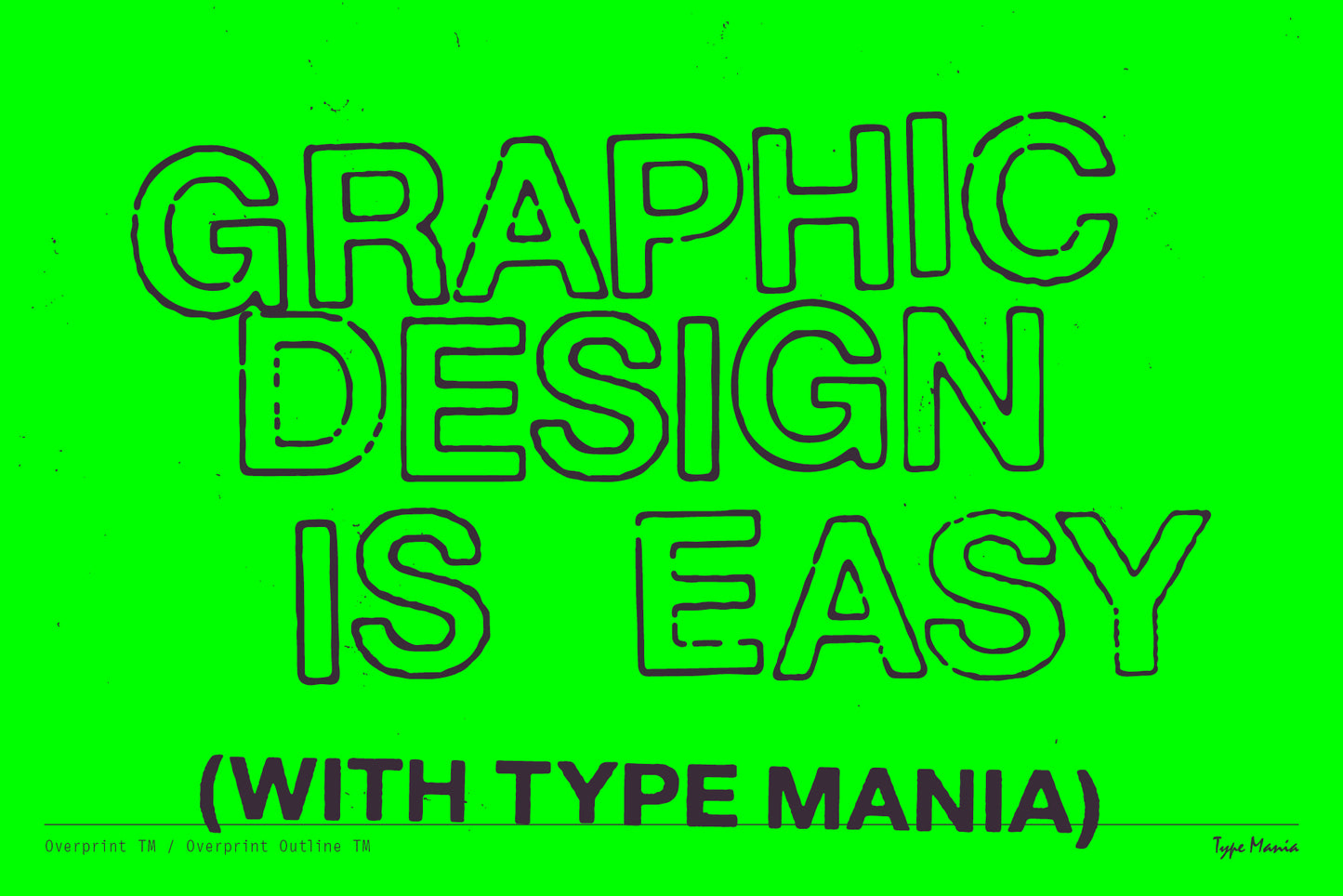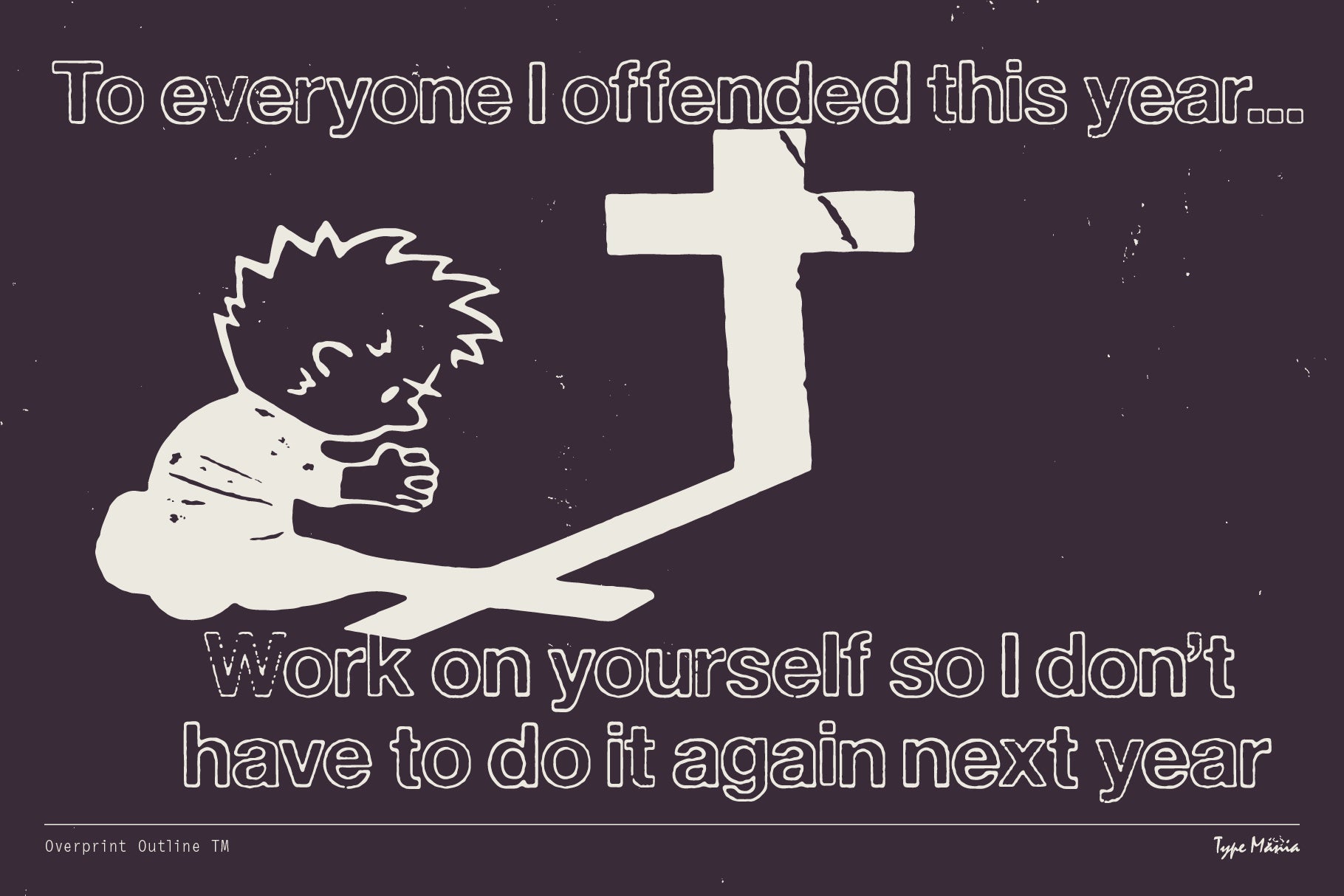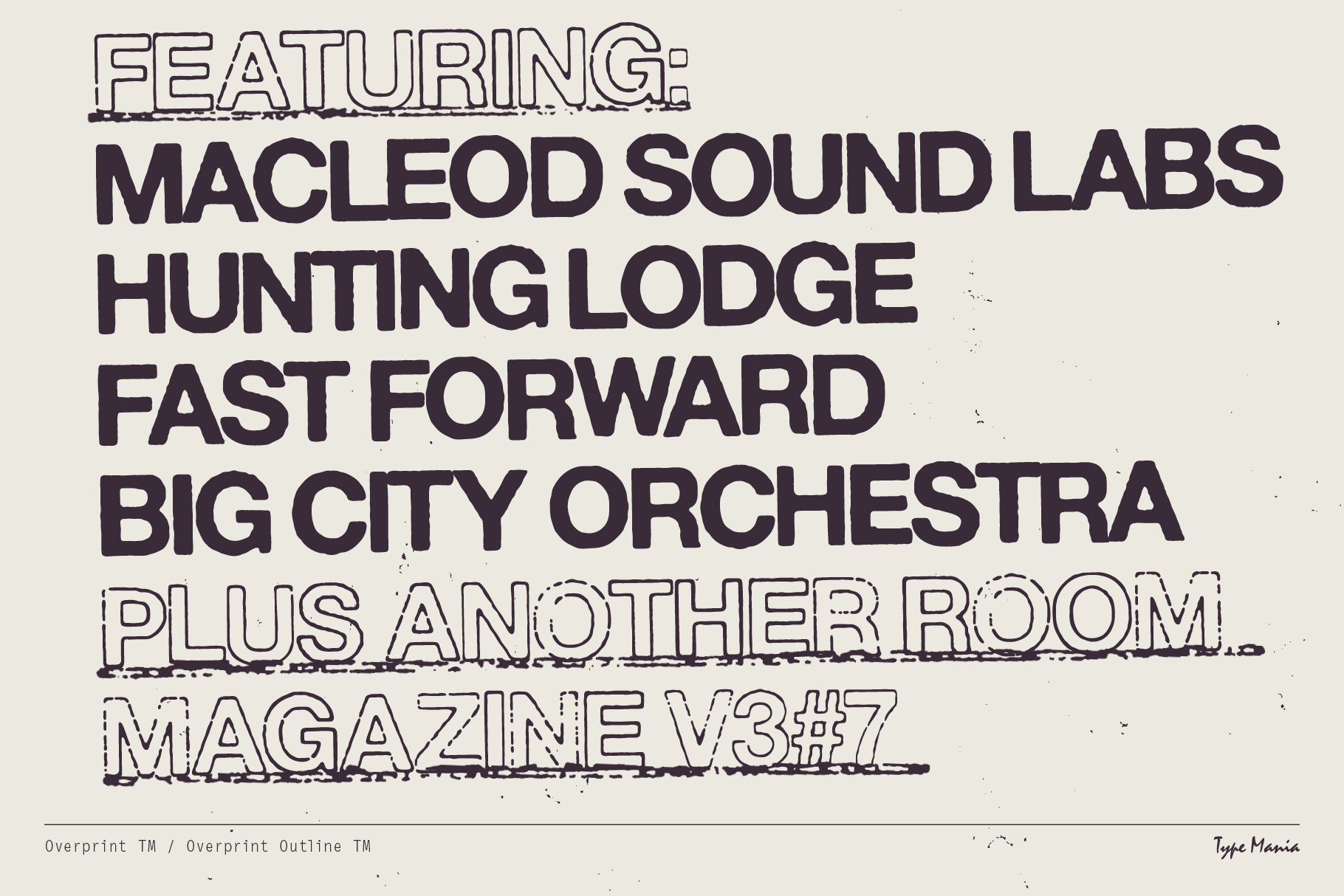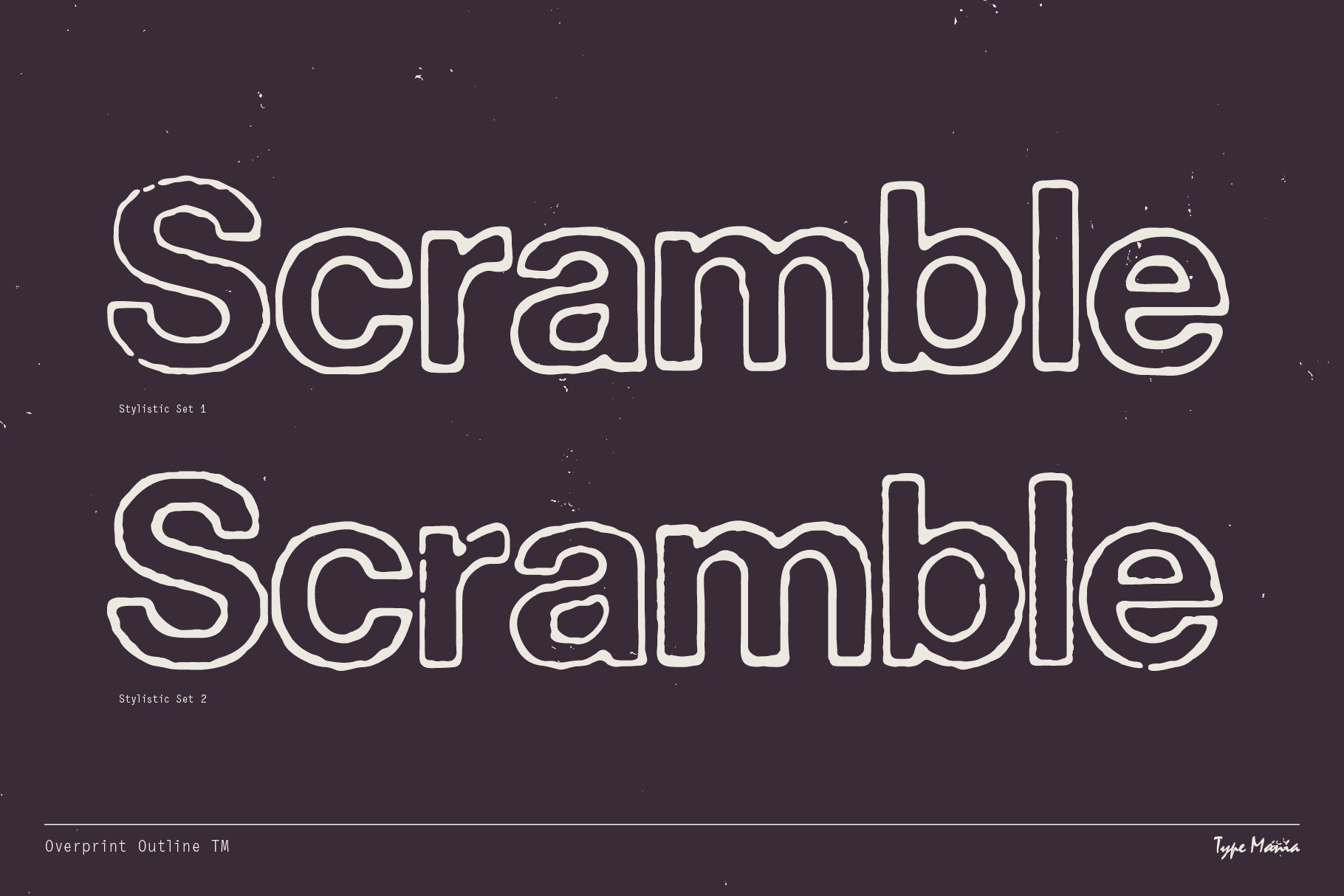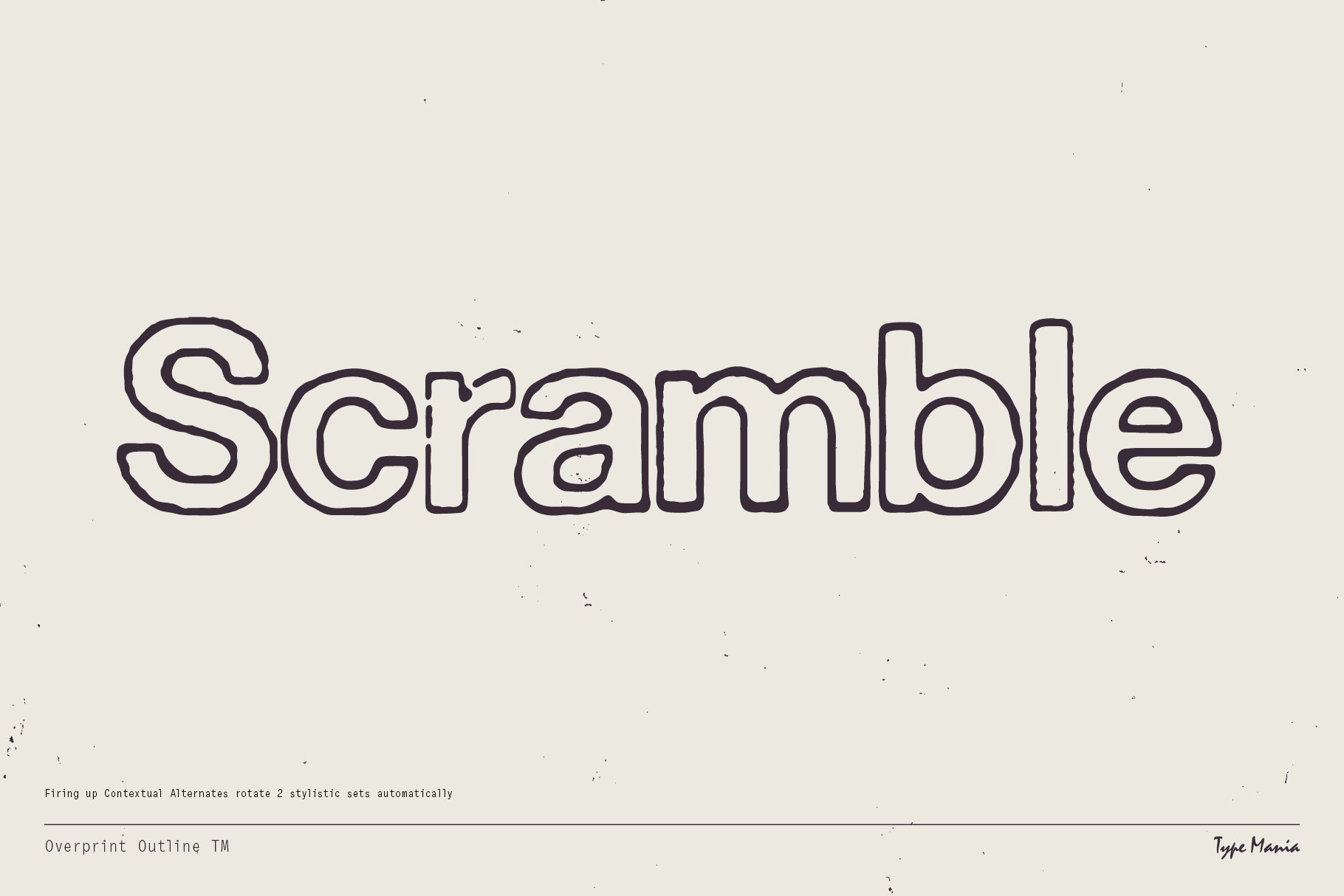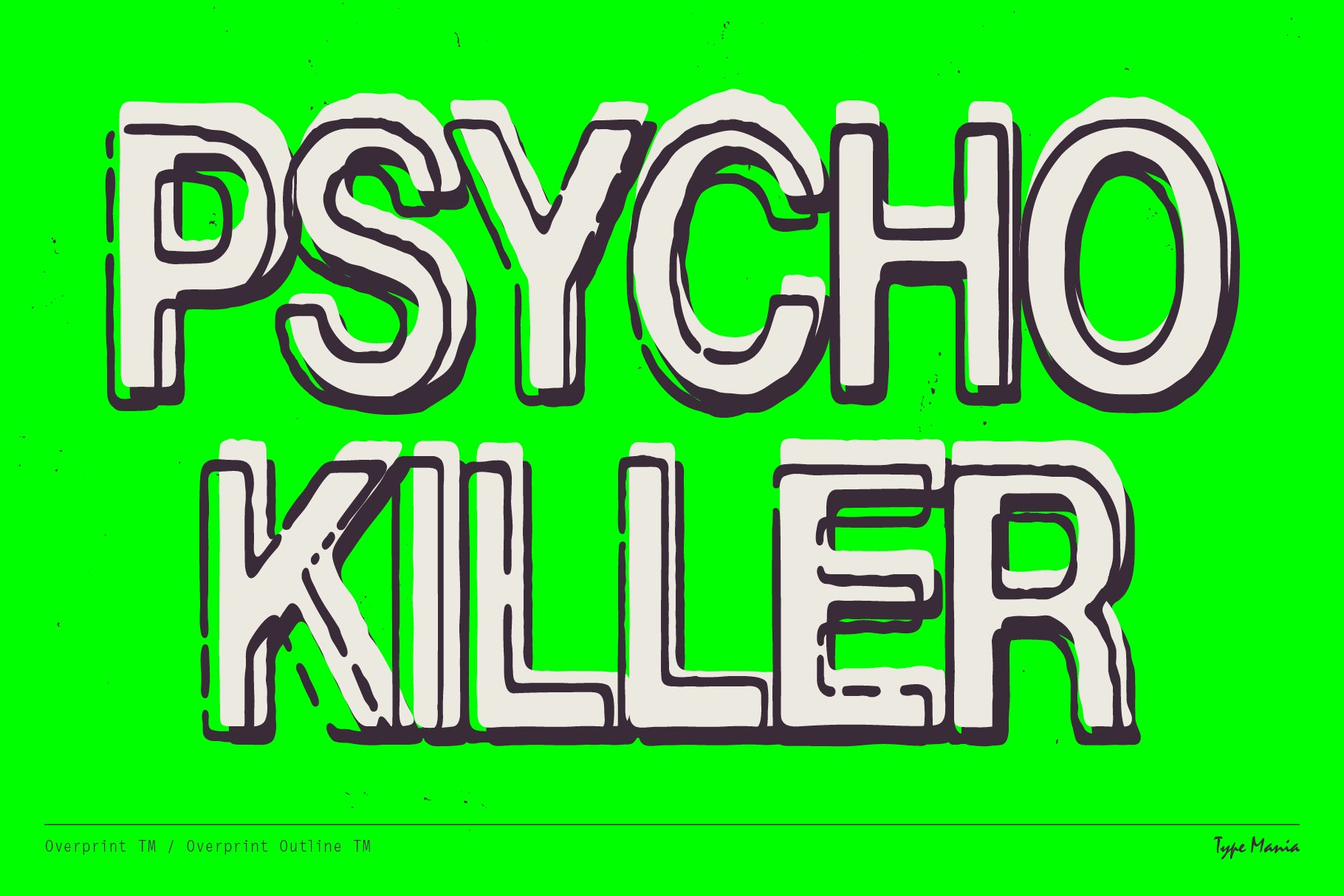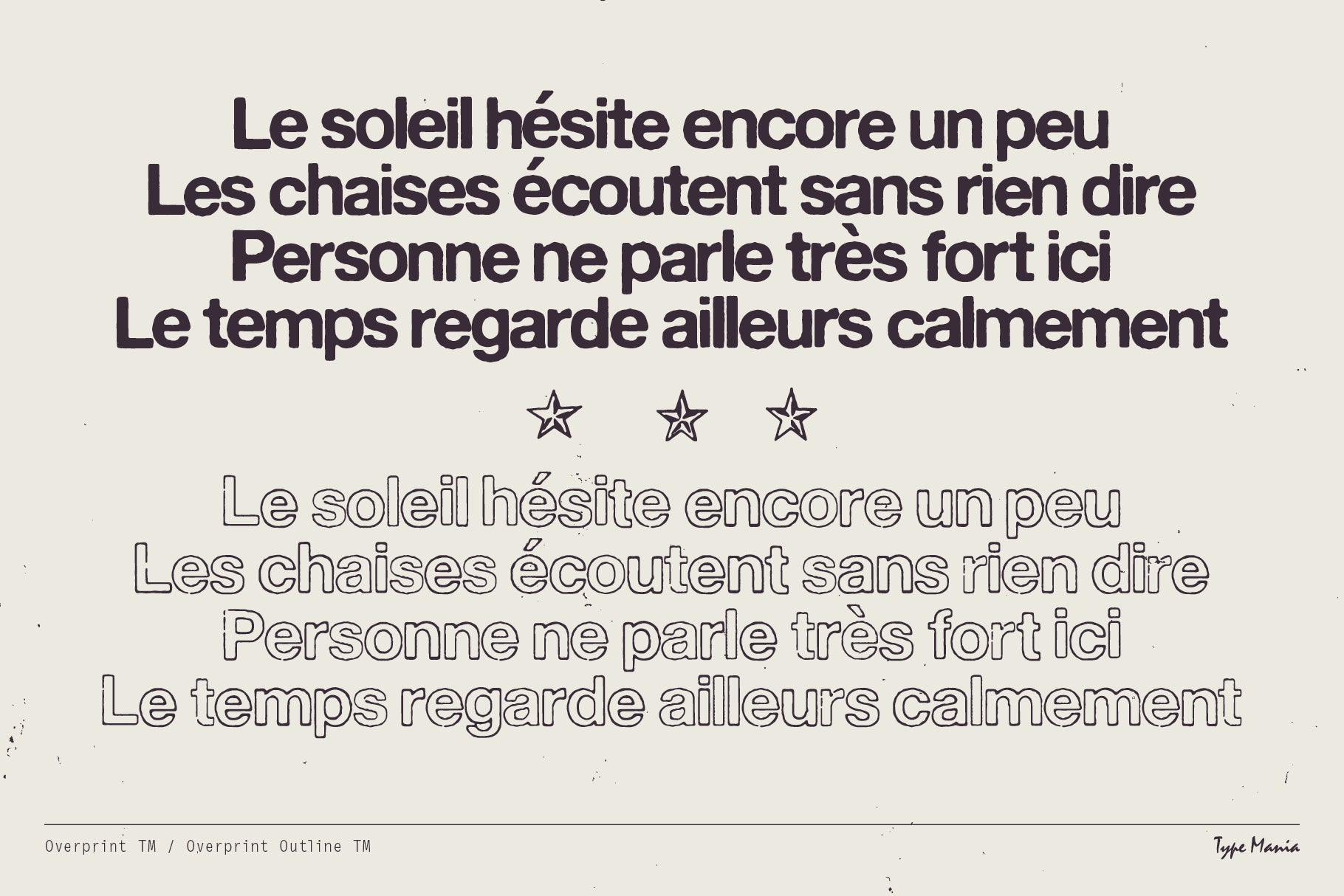
Overprint Outline TM
Overprint Outline TM, a distressed typeface featuring uneven edges and a xeroxed finish. The two stylistic sets rotate automatically with contextual alternates turned on, introducing subtle imperfections across words.
- 2 stylistic sets
- The font is programmed to automatically shift between the stylistic sets